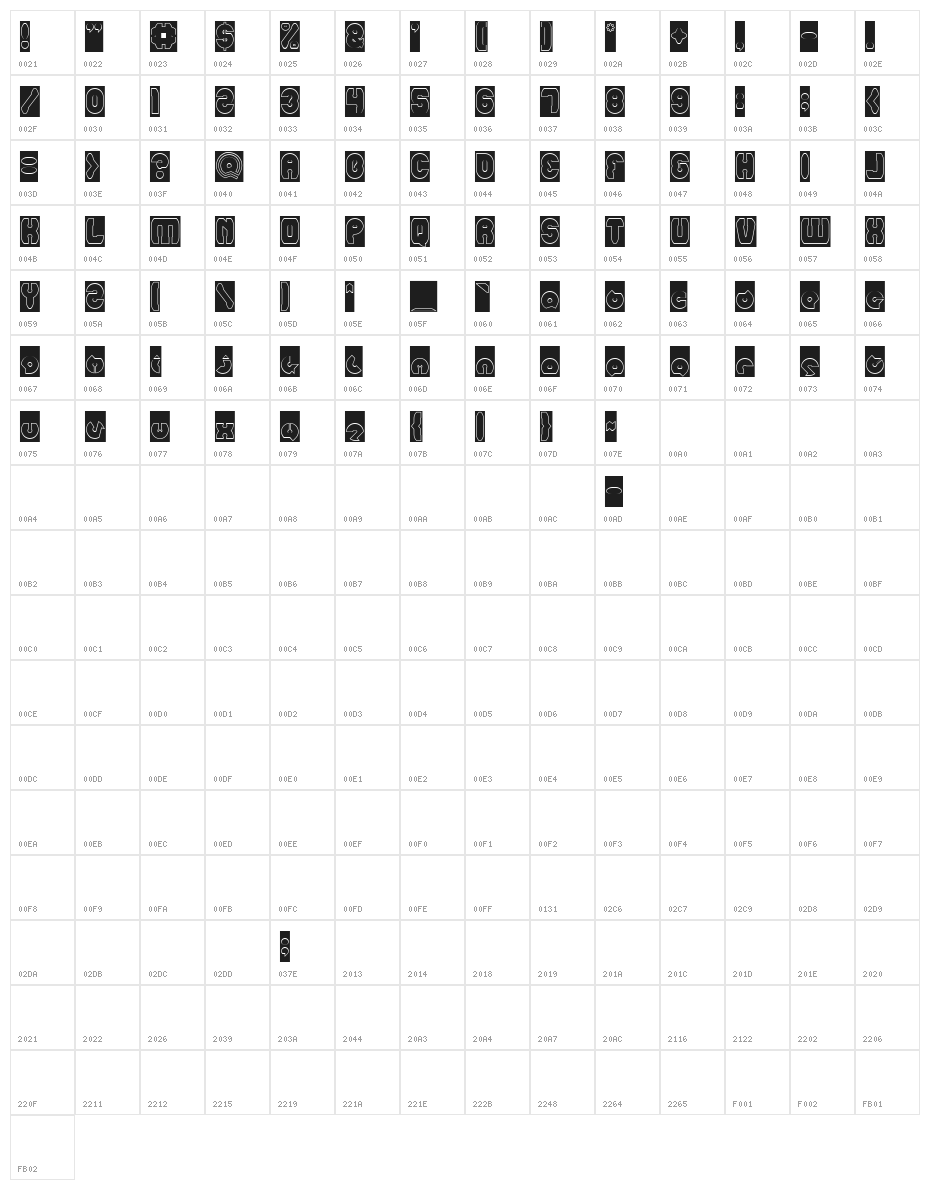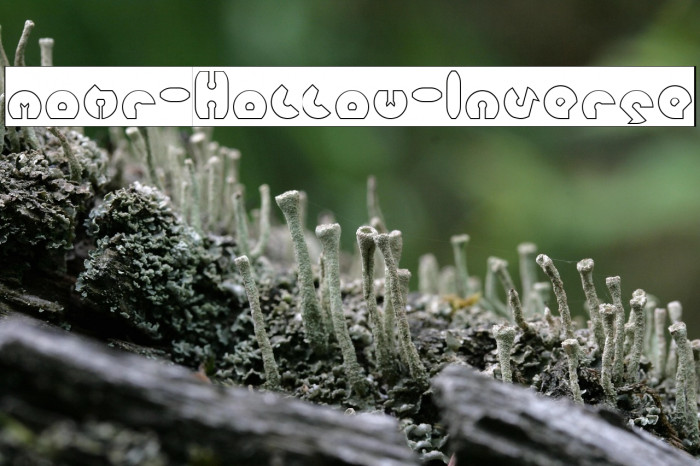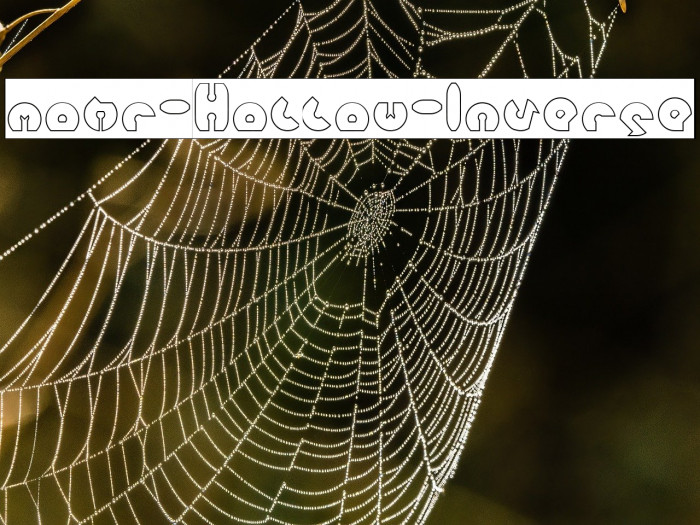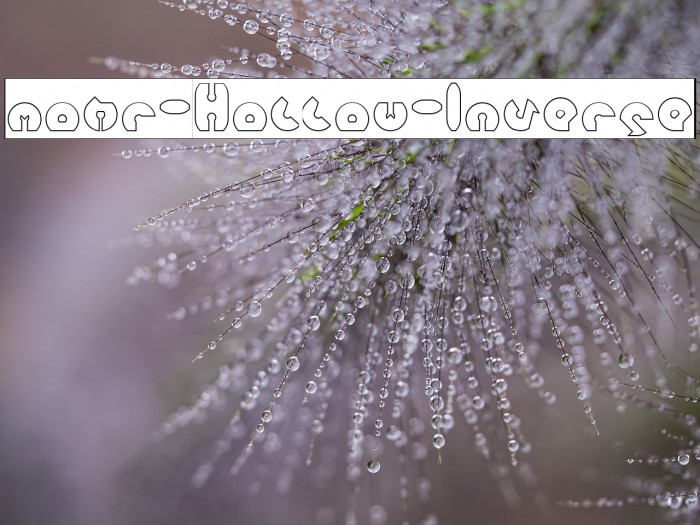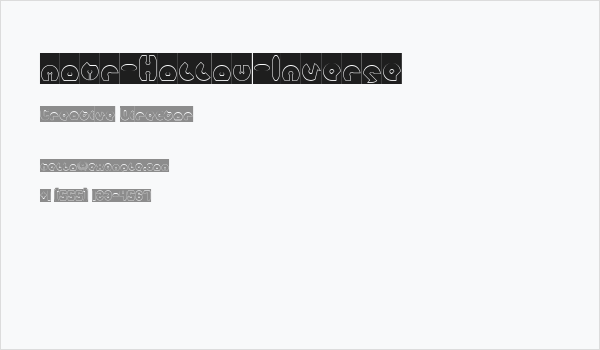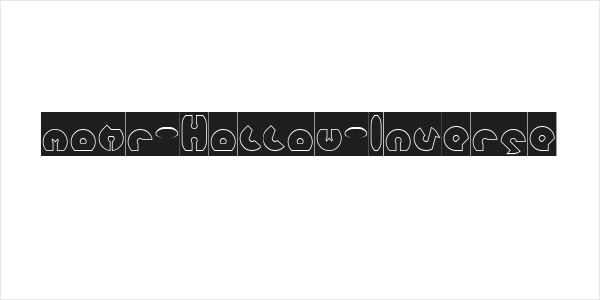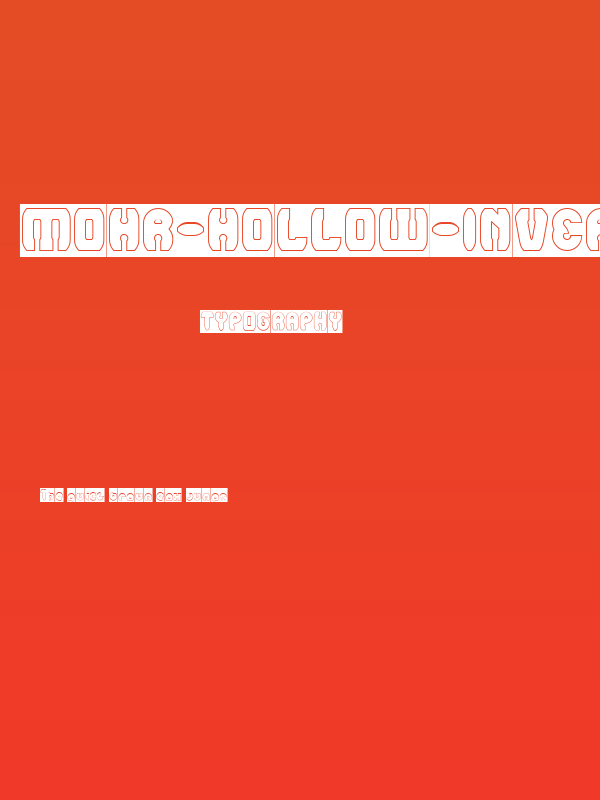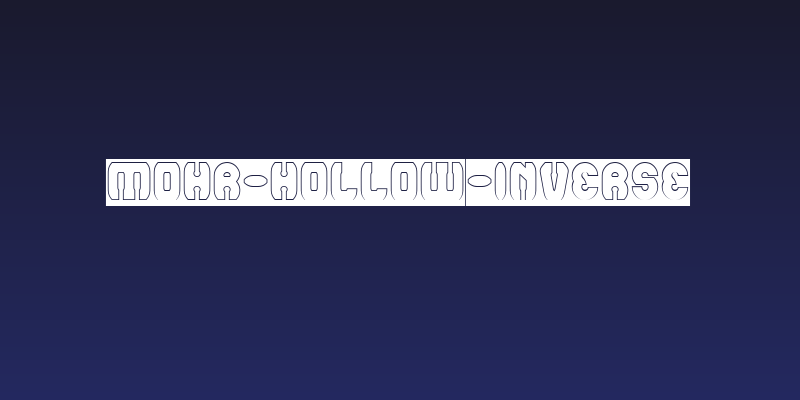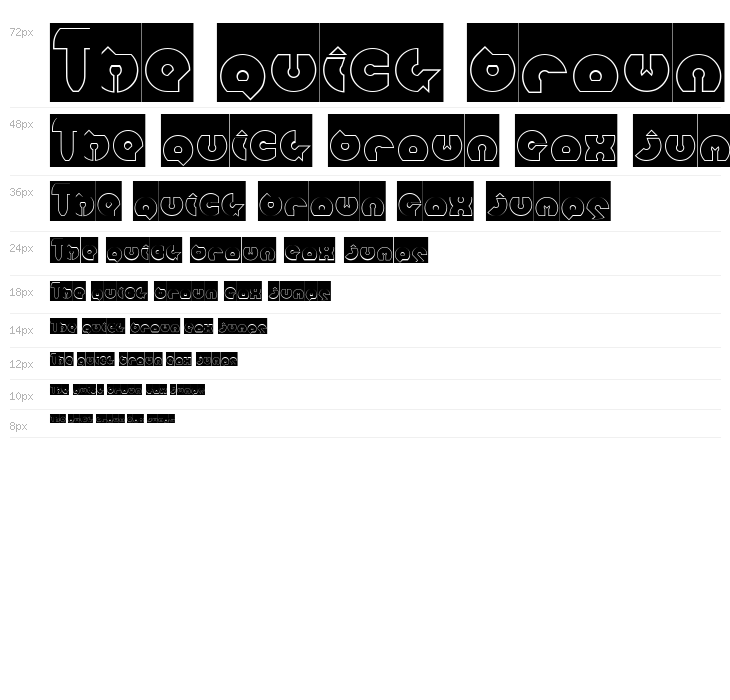
mohr-Hollow-Inverse Font
mohr-Hollow-Inverse Description
This font features a bold, hollow design with a modern and futuristic aesthetic. Each character is outlined with a thick stroke, creating a striking visual effect that stands out against any background. The geometric shapes and clean lines give it a structured and organized appearance, while the hollow centers add a unique twist. The uppercase and lowercase letters maintain a consistent style, with rounded edges and uniform spacing. Numbers and special characters follow the same design principles, ensuring a cohesive look across all text elements. This font is ideal for projects that require a bold statement or a contemporary feel.